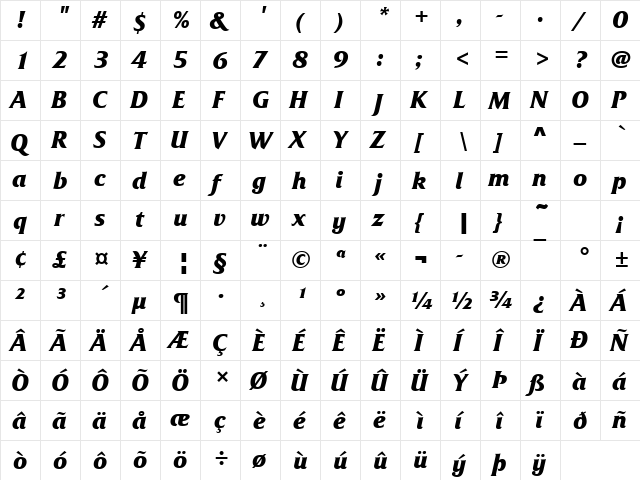
FrodiT Bold Italic
Design Context for FrodiT Typeface
FrodiT offers clean, dependable letterforms without strong stylistic allegiance, making it a practical choice for designers who need flexibility. The slanted form adds forward momentum and visual energy. Its bold stroke weight gives it real presence on the page.
Pro Tip: Try FrodiT for annotation and caption copy alongside an upright companion — the contrast in angle creates a dynamic but ordered typographic system.